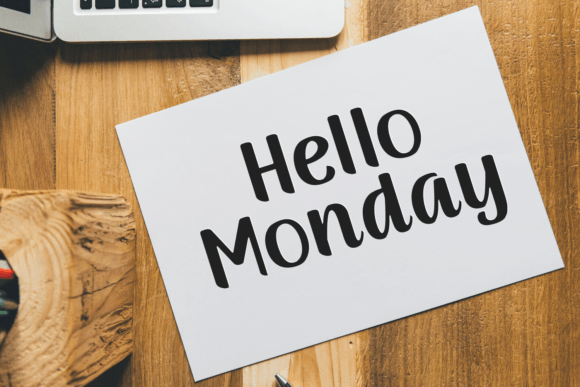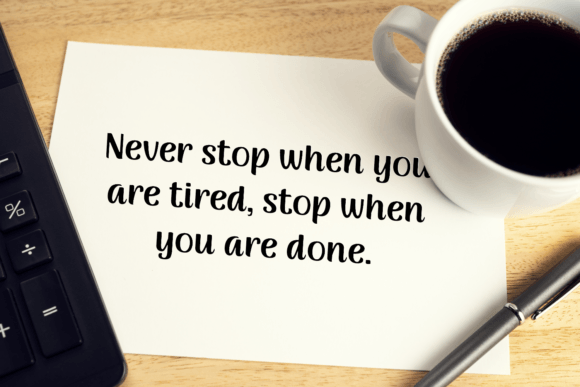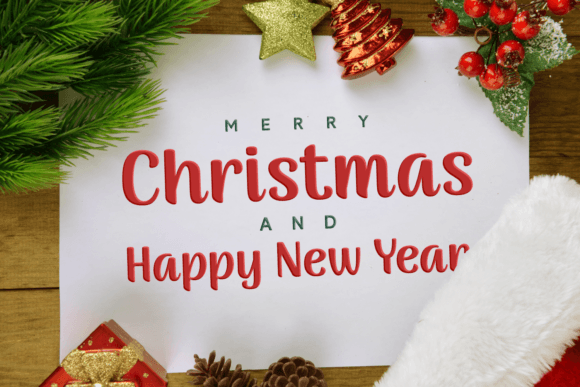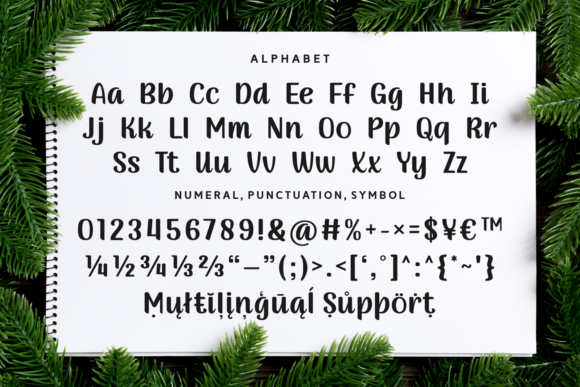
Happiness is a Choice Font: Spread Joy and Positivity with this Delightful Handwritten Font
In the world of typography, fonts can evoke emotions and convey messages in a way that words alone cannot. For designers and crafters looking to add a touch of warmth and optimism to their projects, “Happiness is a Choice” is a clean and delightful handwritten font that radiates positivity. With its smooth lines and friendly curves, this font exudes a sense of charm that is sure to capture the hearts of audiences everywhere.
The Perfect Font for Spreading Joy and Positivity
“Happiness is a Choice” is more than just a font – it’s a statement. It’s a reminder that we all have the power to choose happiness, even on the toughest of days. This font is perfect for projects that aim to spread joy and positivity, such as:
- Greeting cards: Whether it’s a birthday, anniversary, or get-well card, “Happiness is a Choice” is the perfect font to add a personal touch and convey your heartfelt wishes.
- Inspirational quotes: Share your favorite motivational quotes with a font that inspires and uplifts.
- Personal messages: Add a dose of optimism to your personal messages, whether it’s a love letter or a simple note to a friend.
What Makes “Happiness is a Choice” So Special?
So, what sets “Happiness is a Choice” apart from other fonts? Here are just a few features that make it a standout:
- Clean and Delightful Design: The font’s smooth lines and friendly curves create a sense of warmth and approachability.
- Handwritten Touch: The font’s handwritten style adds a personal touch to any project, making it perfect for designs that require a human touch.
- Positivity and Optimism: The font’s design radiates positivity and optimism, making it perfect for projects that aim to inspire and uplift.
Why Choose “Happiness is a Choice”?
With so many fonts to choose from, why should you choose “Happiness is a Choice”? Here are just a few reasons:
- Add a Personal Touch: The font’s handwritten style adds a personal touch to any project, making it perfect for designs that require a human touch.
- Convey Your Message: The font’s clean design and friendly curves make it easy to read and understand, ensuring that your message is conveyed clearly.
- Stand Out from the Crowd: The font’s unique design makes it a standout from other fonts, ensuring that your project gets noticed.
Tips for Using “Happiness is a Choice”
Here are a few tips for getting the most out of “Happiness is a Choice”:
- Pair it with Other Fonts: Pair “Happiness is a Choice” with other fonts to create a unique and eye-catching design.
- Use it for Headings and Titles: Use “Happiness is a Choice” for headings and titles to add a touch of personality to your design.
In conclusion, “Happiness is a Choice” is a delightful handwritten font that radiates positivity and optimism. With its clean design, friendly curves, and handwritten touch, this font is perfect for projects that aim to spread joy and positivity. Whether you’re a designer or crafter, “Happiness is a Choice” is the perfect font to add a dose of optimism to your designs. So why not give it a try? Choose “Happiness is a Choice” today and start spreading joy and positivity with your designs!